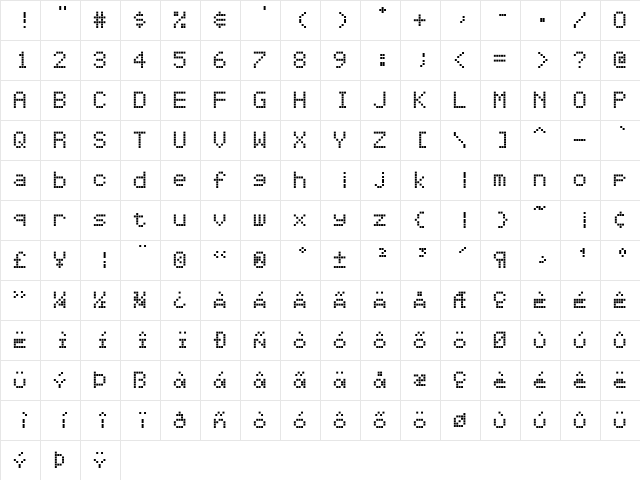
Repetition Scrolling Regular
Design Context for Repetition Scrolling Typeface
Repetition Scrolling is a composed and adaptable typeface that performs quietly and consistently across a wide range of design contexts.